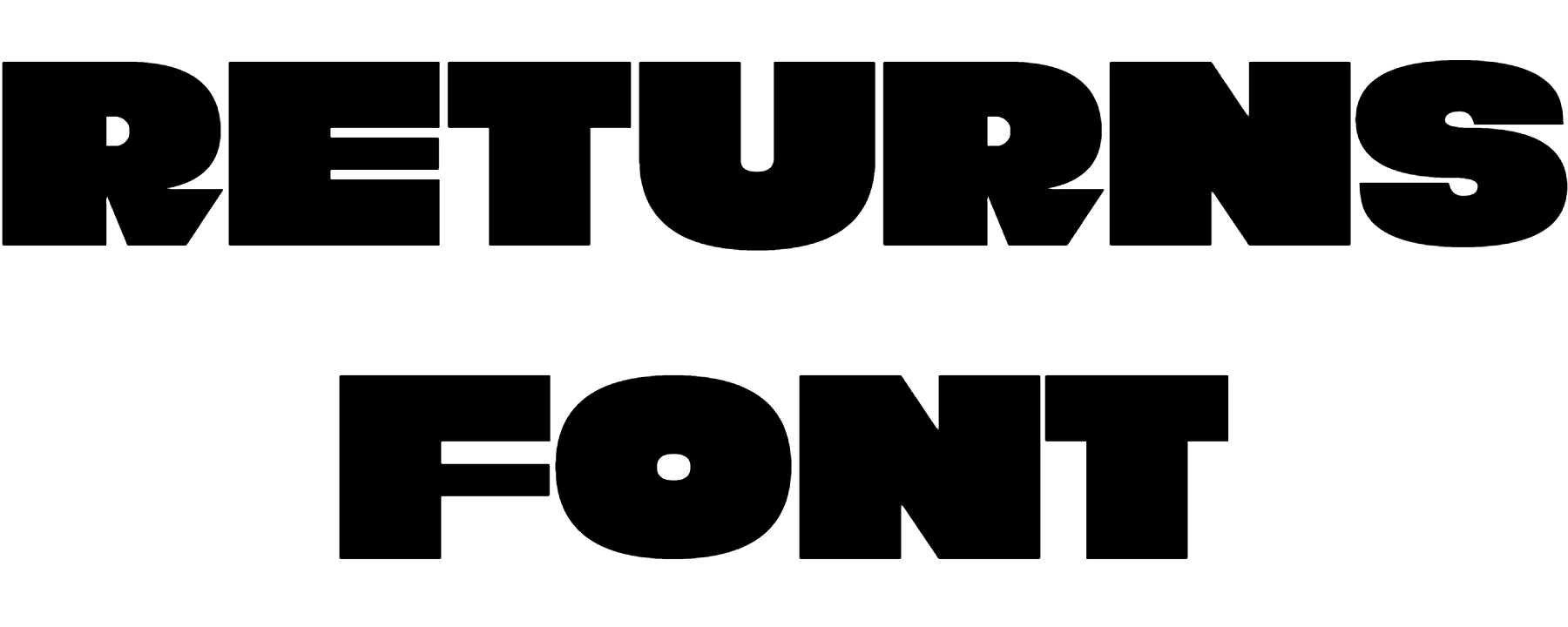
Returns
- Designer: Muhamad Fikry Nuralif
- Publisher: Fikryal Studio
Returns covers the full alphabet in upper and lowercase, plus all ten numbers, so you can set names, dates and prices without switching fonts. Common punctuation such as &, !, ? and @ is included as well. It also has the accented letters you need for Spanish, French, German, Portuguese and Italian.
Designers usually reach for fonts like Returns when they're making websites, app screens and clean logos. It works for headings and body text alike. If the download has several weights, use a heavier one for titles and a lighter one for paragraphs.
Yes. Returns includes the accented letters needed for Spanish, French, German, Portuguese and Italian, so it works for more than just English.